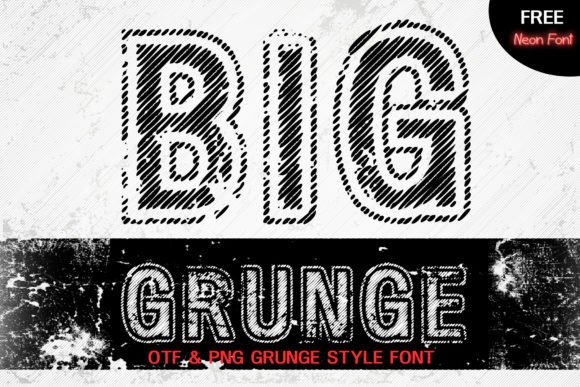
Introducing Big Grunge Font, the perfect addition to your font collection! This display font, created by NPNaay, is the ultimate choice for anyone looking for the Best Font For Headline.
Big Grunge Font is a unique and cool sporty font that features a heavily distressed texture, making it the perfect fit for designs that need a little edge. Whether you're creating a logo, poster, or website header, this font will add the perfect touch of grit to your project.
But that's not all! Big Grunge Font is incredibly versatile and can be used for a wide range of topics. From sports and fitness to music and entertainment, this font has the potential to elevate any creation and make it stand out from the crowd.
What sets Big Grunge Font apart from other display fonts is its ability to evoke emotions. Its rough and raw texture adds a sense of energy and excitement to any design, making it the perfect choice for those looking to create a bold statement.